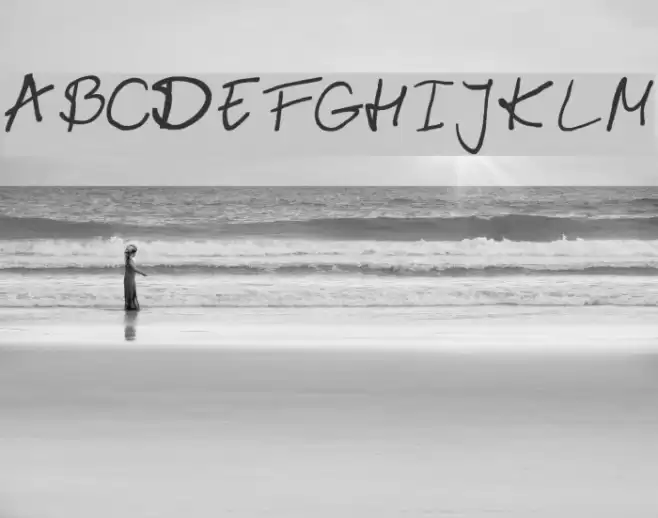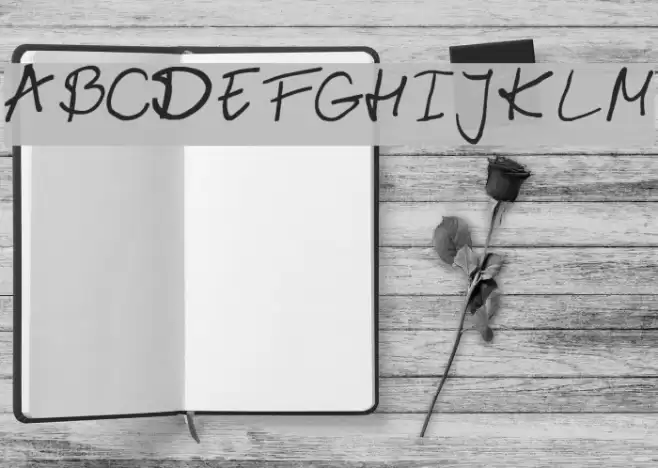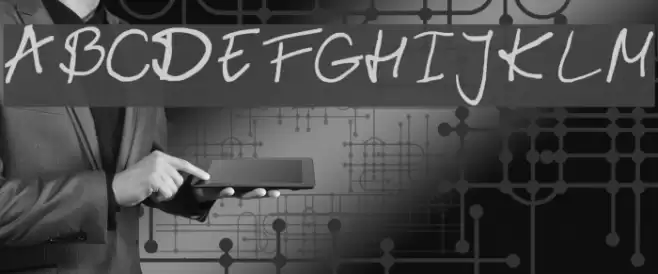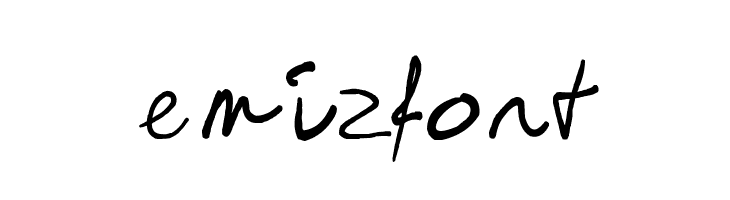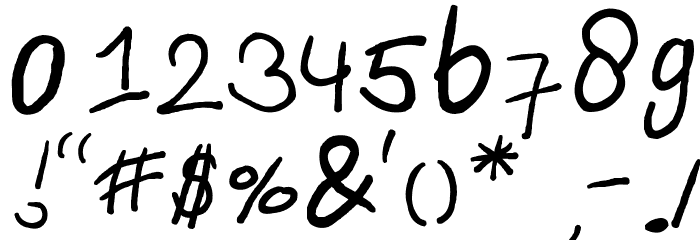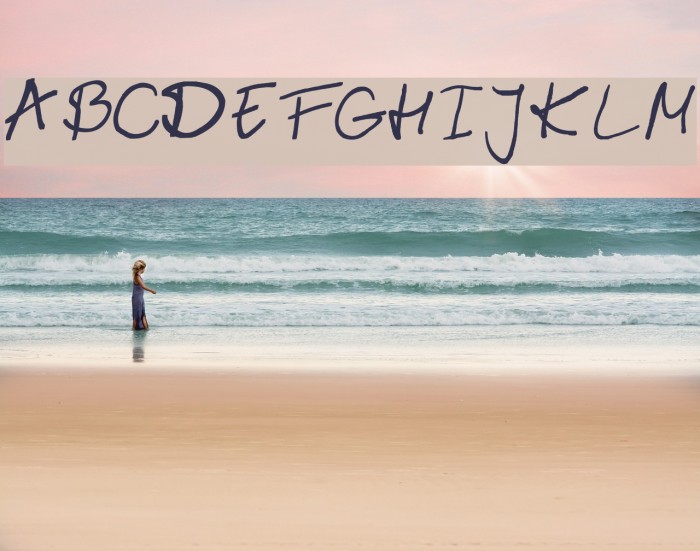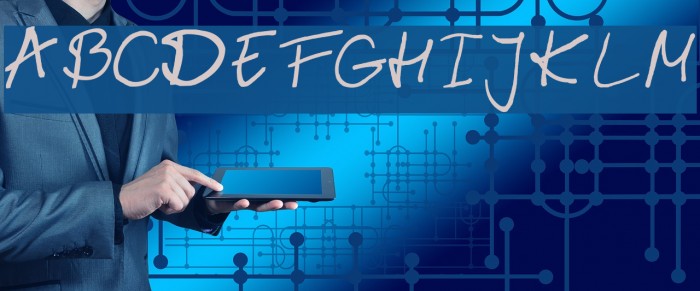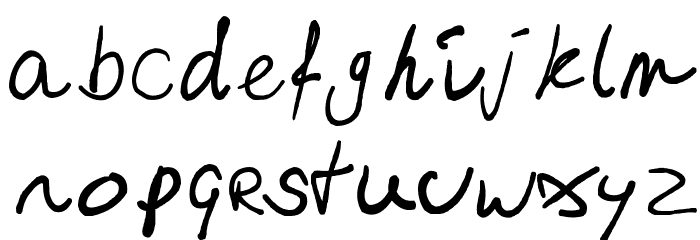
emizfont Font
emizfont Description
This font features a dynamic and energetic handwritten style, characterized by its fluid and slightly irregular strokes. The uppercase letters exhibit a playful and casual appearance, while the lowercase letters maintain a consistent flow, enhancing readability. Numbers and special characters are crafted with the same lively touch, making them stand out. The overall design exudes a sense of spontaneity and creativity, perfect for projects that require a personal and informal touch.
A lively handwritten font with fluid, energetic strokes from Handwritten fonts.
- Proposed Projects: Ideal for greeting cards, personal branding, creative posters, and social media graphics.
- Overall Style: Casual, Creative
- Use Case: Logos, Headlines, Informal Invitations